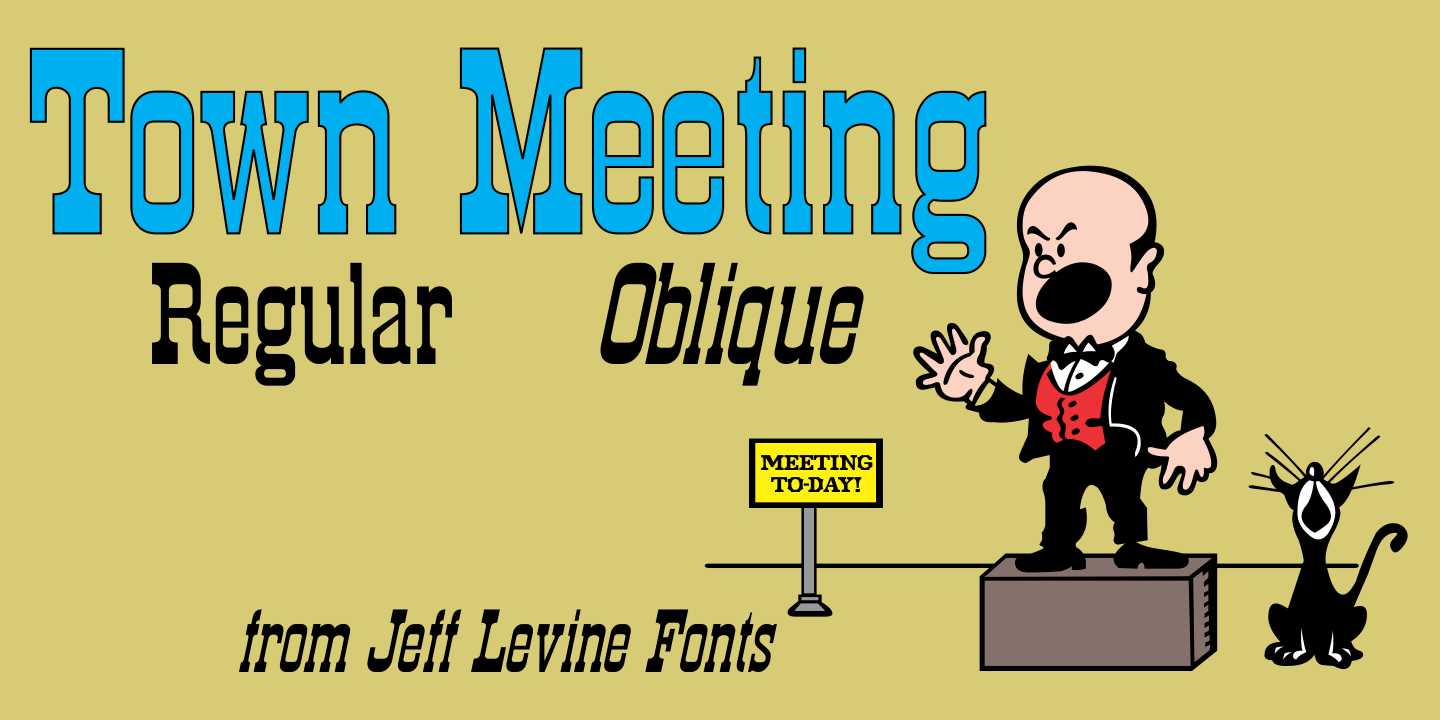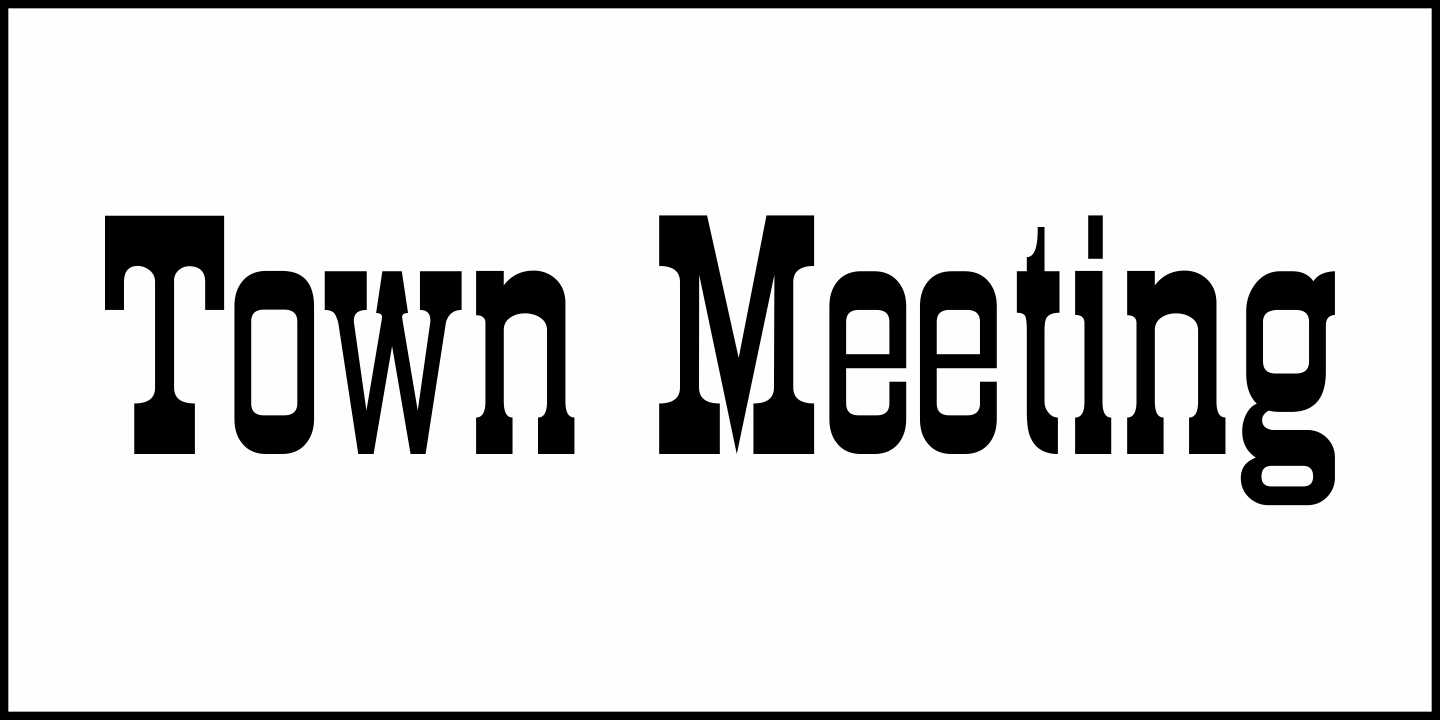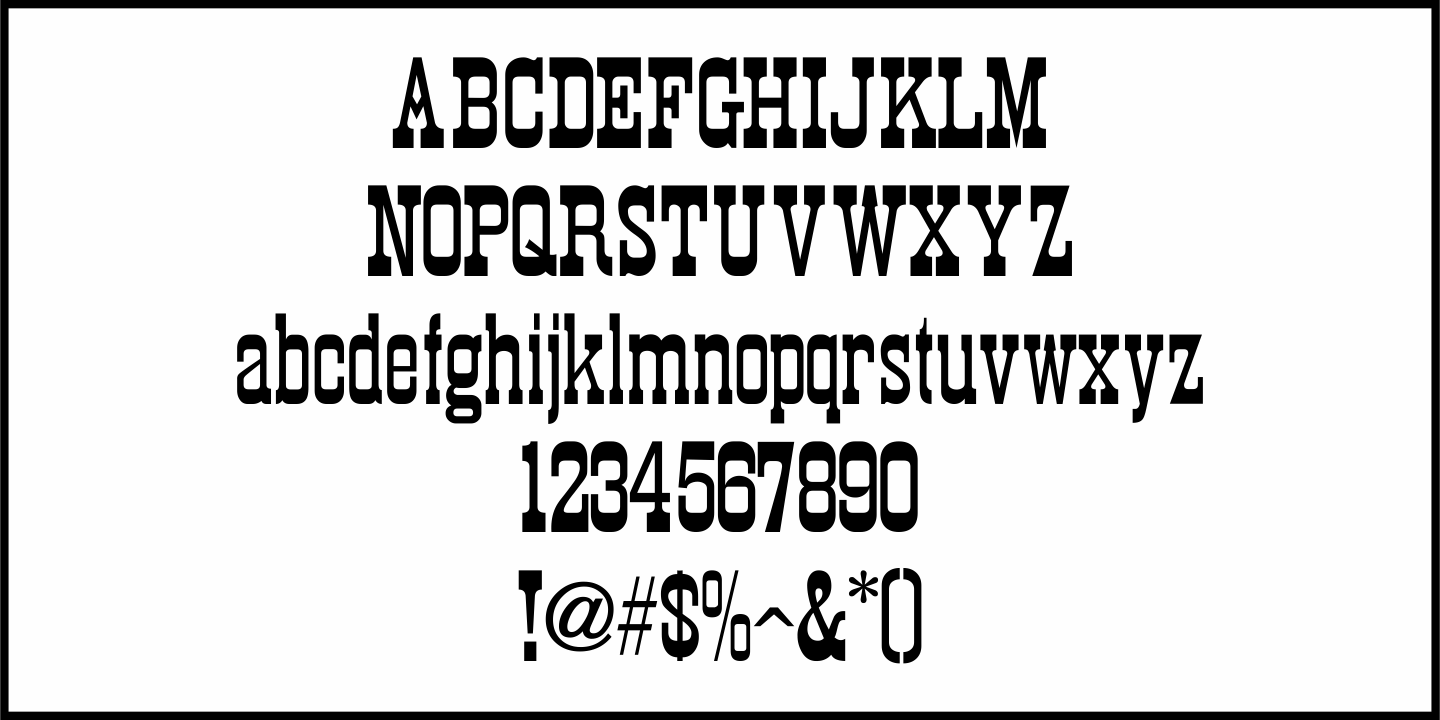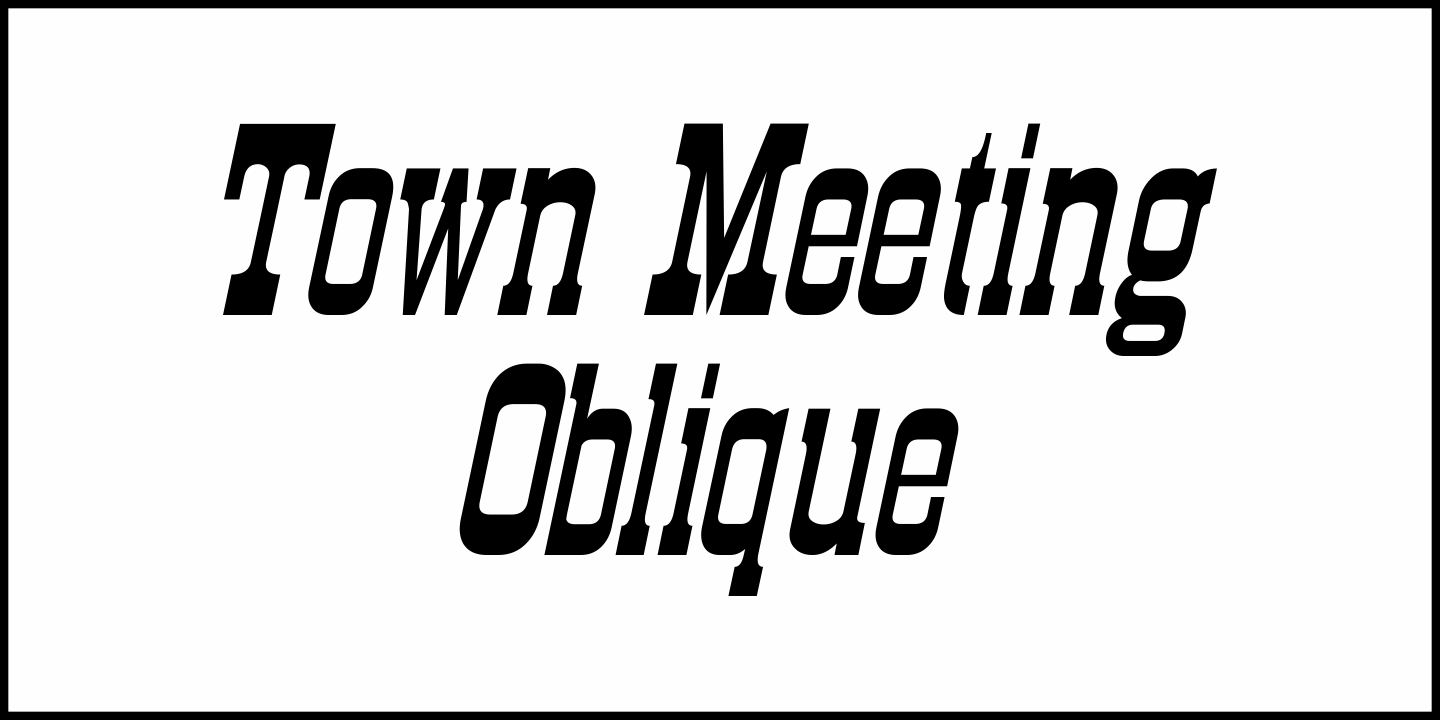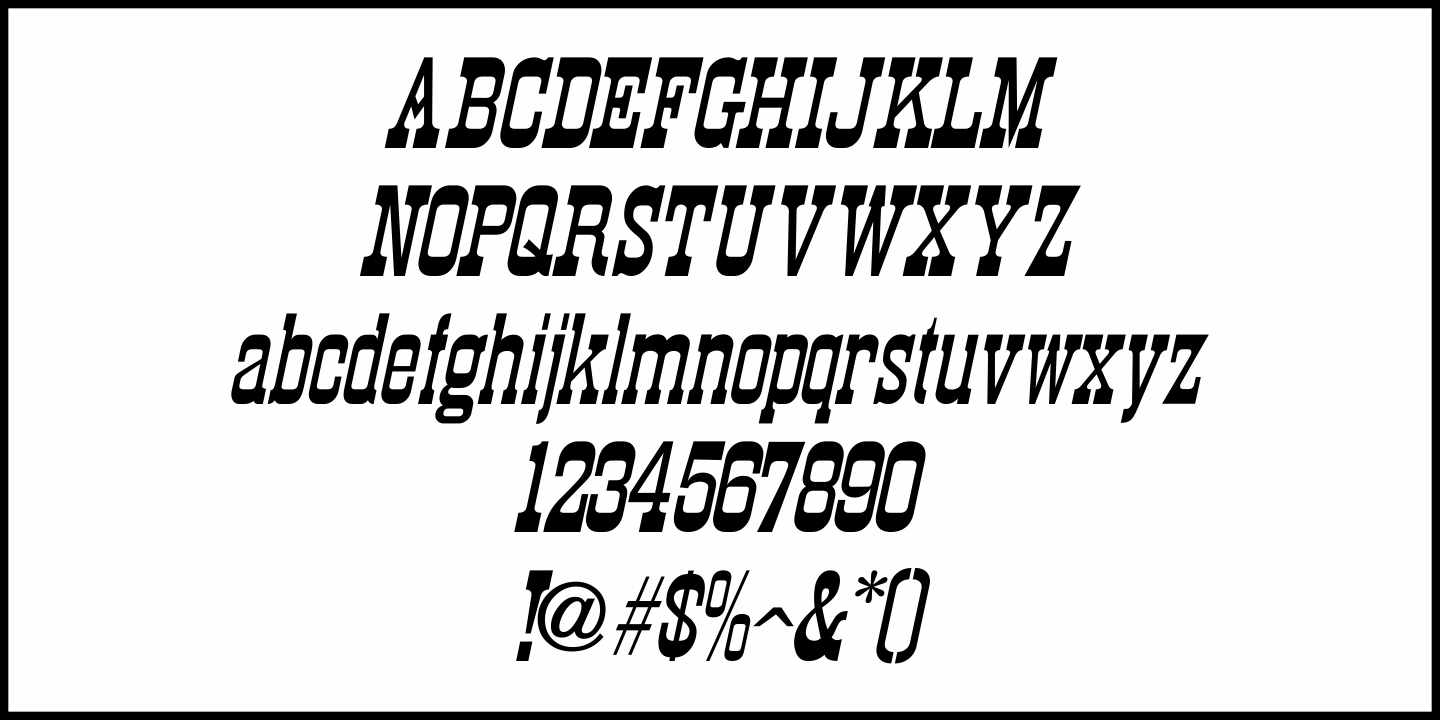
Town Meeting
Town Meeting JNL (available in both regular and oblique versions) is a modified version of Mud Creek JNL (which was based on Tuscan Egyptian – a classic wood type). The side spurs were removed and the split serifs were replaced by slab serifs.